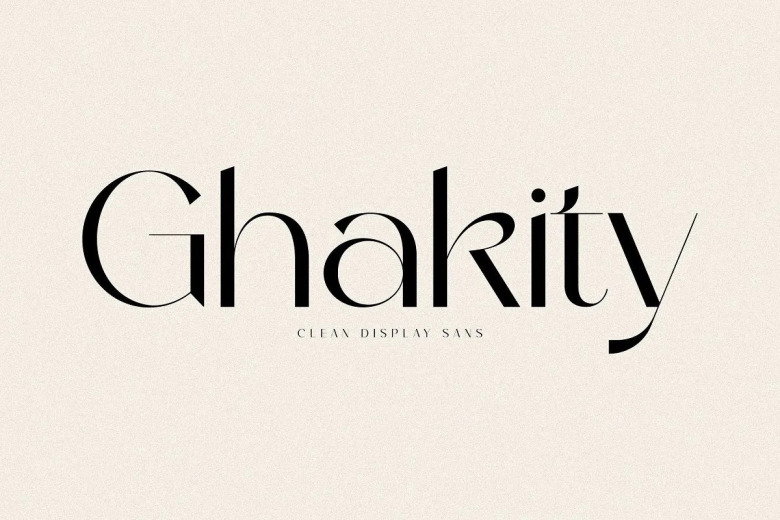
Ghakity Font
Ghakity Sans Serif Font, created by Storytype, A modern and classic display sans typeface that has own unique style & modern look. This typeface is perfect for an elegant & luxury logo, book or movie title design, fashion brand, magazine, clothes, lettering, quotes, and so much more.
Ghakity Sans Serif Font